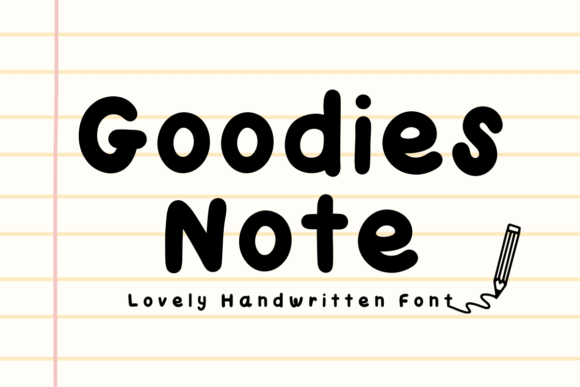
Introducing Goodies Note Font: The Perfect Handwritten Font for Your Design Projects
Are you a designer or crafter looking for a font that combines visual appeal and readability? Look no further than Goodies Note Font. This beautiful handwritten font is perfect for a variety of design projects, from crafting and scrapbooking to branding and advertising.
What is Goodies Note Font?
Goodies Note Font is a carefully crafted handwritten font that is designed to be both visually appealing and easy to read. Its unique blend of elegance and playfulness makes it perfect for a wide range of design projects. Whether you’re creating a handmade card, a scrapbook page, or a brand identity, Goodies Note Font is the perfect choice.
Key Features of Goodies Note Font
- Handwritten style: Goodies Note Font has a beautiful, handwritten style that adds a personal touch to any design project.
- High readability: Despite its handwritten style, Goodies Note Font is highly readable, making it perfect for use in a variety of design projects.
- Versatility: Goodies Note Font can be used in a wide range of design projects, from crafting and scrapbooking to branding and advertising.
- Elegant and playful: Goodies Note Font has a unique blend of elegance and playfulness, making it perfect for designers and crafters who want to add a touch of personality to their designs.
Uses for Goodies Note Font
Goodies Note Font is a versatile font that can be used in a wide range of design projects. Here are just a few ideas:
- Crafting and scrapbooking: Goodies Note Font is perfect for use in handmade cards, scrapbook pages, and other paper crafting projects.
- Branding and advertising: Goodies Note Font can be used to create a unique and memorable brand identity for businesses and organizations.
- Stationery and invitations: Goodies Note Font is perfect for use in stationery, invitations, and other paper products.
- Digital design: Goodies Note Font can be used in digital design projects, such as social media graphics, blog posts, and website design.
Tips for Using Goodies Note Font
Here are a few tips for using Goodies Note Font in your design projects:
- Use it sparingly: Goodies Note Font is a statement font, so use it sparingly to add emphasis and personality to your designs.
- Pair it with other fonts: Goodies Note Font pairs well with other fonts, so don’t be afraid to experiment with different font combinations.
- Experiment with colors: Goodies Note Font looks great in a variety of colors, so experiment with different colors to find the perfect look for your design.
Goodies Note Font is a beautiful handwritten font that is perfect for designers and crafters who want to add a touch of personality to their designs. Its unique blend of elegance and playfulness makes it perfect for a wide range of design projects, from crafting and scrapbooking to branding and advertising. With its high readability and versatility, Goodies Note Font is a great choice for any design project.